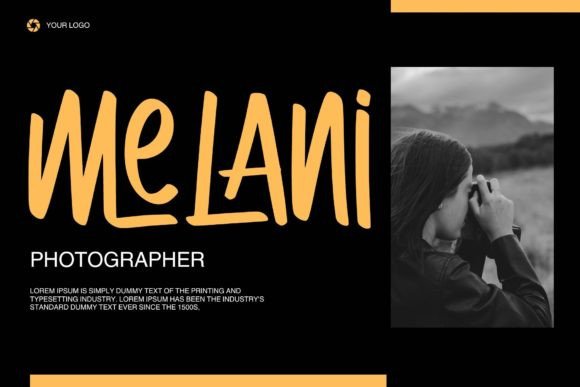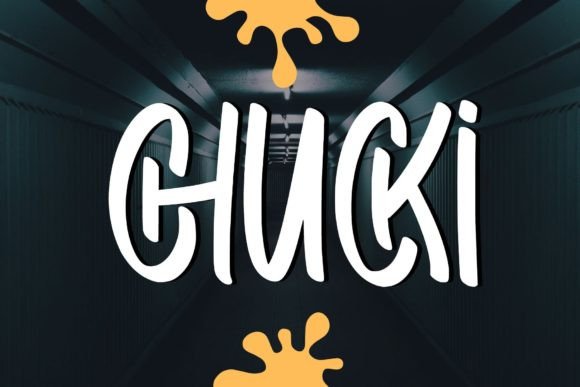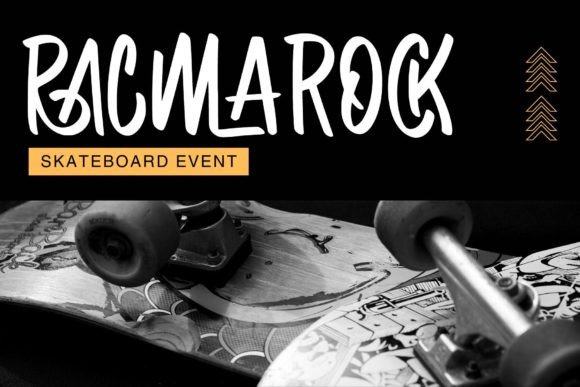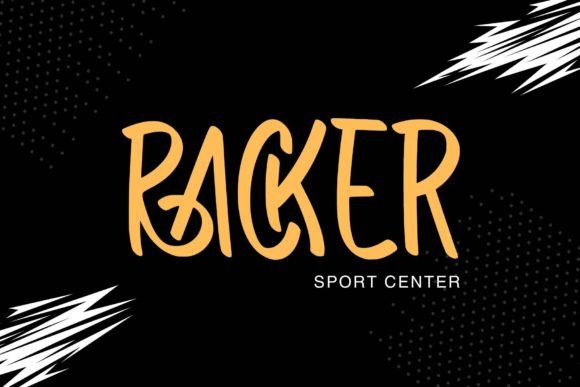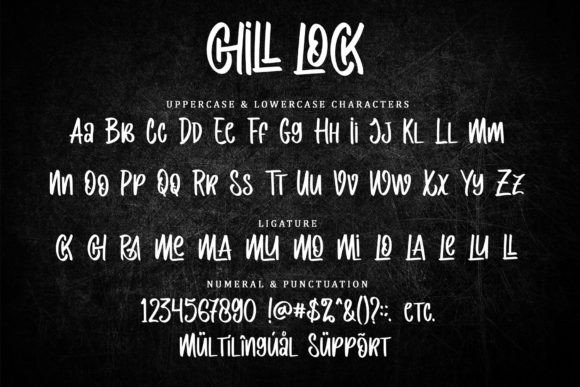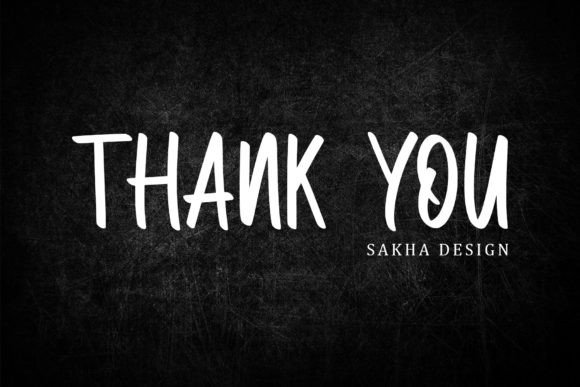
Unlock the Artistic Flair of Your Designs with Chill Lock Font
Remember the moment when you stumbled upon the perfect font to elevate your design project? Maybe it was for a special invitation, a social media post, or even a personal brand identity. Whatever it was, that ‘aha’ moment is what drives us to keep creating and pushing the boundaries of typography. Today, we’re excited to introduce you to Chill Lock Font – a beautiful, hand-lettered font that will give your designs a unique and artistic flair.
With Chill Lock Font, you can add a touch of elegance and sophistication to your projects. Our font is carefully crafted to capture the essence of hand-lettering, making it perfect for designers who want to stand out from the crowd. Whether you’re working on a wedding invitation, a logo, or a social media campaign, Chill Lock Font is sure to bring a breath of fresh air to your designs.
Chill Lock Font Key Features
- Unique Characteristics: The Chill Lock Font features a unique blend of modern and vintage elements, with intricate details and subtle textures that add depth and visual interest.
- Font Style: Available in both Regular and Bold styles, providing flexibility for designers to create contrasting and visually appealing typography.
Chill Lock Font Review
Overall, I found the Chill Lock Font to be a visually appealing and unique typeface. It’s perfect for creatives who want to add a touch of coolness to their designs. ✨
- Distinctive style: The font’s bold and edgy feel makes it stand out in crowded design spaces.
- High-resolution quality: The font looks crisp and clear even at high resolutions.
- Font pairing versatility: Chill Lock Font can be paired with a variety of other fonts to create visually appealing combinations.
However, I did encounter some limitations that might make it less suitable for certain projects. ⚠️
- Limited language support: The font may not be optimized for non-English languages, which could lead to display issues.
- Not ideal for body text: Due to its bold and condensed nature, Chill Lock Font might be difficult to read in large blocks of text.
- Requires careful kerning: The font’s unique style can make kerning (the spacing between characters) a challenge, especially for less experienced designers.
Overall, I’d recommend Chill Lock Font for projects where a bold, eye-catching typeface is required. Just be mindful of its limitations and take the necessary steps to ensure a smooth design process.
Use the Chill Lock Font to create a unique and eye-catching visual identity. Pair it with bold colors and simple graphics to create a striking design. Experiment with different font sizes and styles to add depth and interest to your text.
The Chill Lock Font is perfect for creative projects, such as:
– Social media graphics
– Branding and marketing materials
– Event invitations
– Print ads
– Digital signage